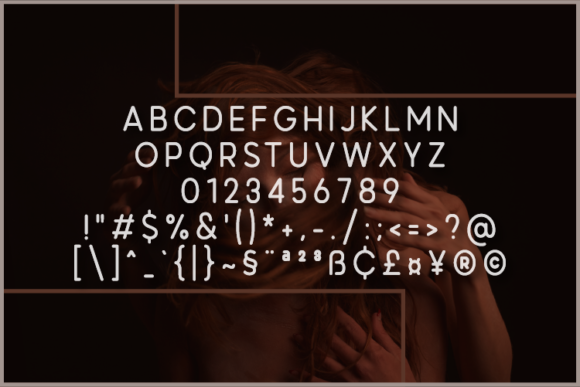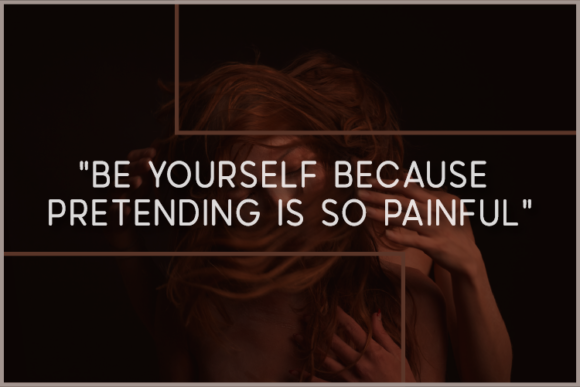
Introduction to Patricea Font
Patricea is a fancy, contemporary sans serif font.
It will complement any design need perfectly with its perfectly balanced mix of the smooth and sharp .